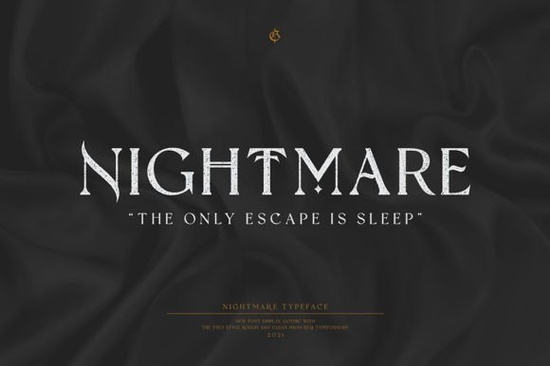
If you're looking for a blackletter font that feels both timeless and fresh something that works just as well on a wedding invitation as it does on a limited-edition T-shirt the Nightmare Gothic Font is worth your attention. It’s not overly ornate, nor is it stripped down to the point of losing character. Instead, it strikes a thoughtful balance: bold enough to command attention, legible enough to use at smaller sizes, and versatile enough for both digital and print projects.
What kind of projects is Nightmare Gothic best suited for?
This font shines where strong visual identity matters. Think logo design for small businesses with gothic, vintage, or artisanal vibes like a craft brewery, an indie bookstore, or a handmade soap brand. It also pairs beautifully with minimalist layouts when used sparingly, such as a single-word headline on a greeting card or the name on a custom stationery set. Because its letterforms have consistent weight and clean terminals, it holds up well in embroidery digitizing and screen printing two common needs for print-on-demand sellers.
Unlike some blackletter fonts that feel stiff or dated, Nightmare Gothic includes subtle open counters and slightly rounded joins, which help it breathe on the page. That makes it easier to read in longer phrases (like event names or short taglines) without sacrificing its distinctive gothic personality.
How does it compare to other blackletter options on Creative Fabrica?
If you've already tried Blistao, you’ll notice Nightmare Gothic has tighter spacing and a more uniform baseline great if you’re layering text over photos or working with tight layout constraints. Compared to Black Ink, it leans less calligraphic and more structured, giving it stronger branding potential for logos that need to scale cleanly from business cards to billboards.
And while Arkhaven offers dramatic contrast and flourishes ideal for display use, Nightmare Gothic is built for flexibility. You can use it across multiple touchpoints packaging labels, social media banners, even email headers without needing to switch fonts mid-campaign.
One practical note: because it’s a blackletter style, avoid using it for body text or long paragraphs. Stick to headlines, names, short quotes, or decorative accents. For supporting text, pair it with a clean sans-serif like Montserrat or Lato or even a soft serif like Cormorant Garamond to create contrast without clashing.
Where do designers actually use this font?
- Small business branding: A local tattoo studio used it for their shop sign and Instagram bio clean, recognizable, and quietly confident.
- Greeting cards & stationery: Crafters report high engagement when using it for “Happy Birthday” or “Just Married” headers especially with foil-stamped prints.
- Apparel design: Works well on dark fabric backgrounds; one POD seller saw a 20% lift in click-throughs on listings featuring Nightmare Gothic compared to generic script fonts.
- Packaging & labels: Its even stroke width helps it scan cleanly on product tags and jar labels even at 8 pt size.
For comparison, browsing related blackletter fonts like Blistao Font, Black Ink Font, or Arkhaven Font helps clarify what sets each apart not just in appearance, but in how they behave across tools and materials.
- ✅ Pair it thoughtfully avoid stacking multiple decorative fonts. Let Nightmare Gothic lead, then support with something neutral and highly readable.